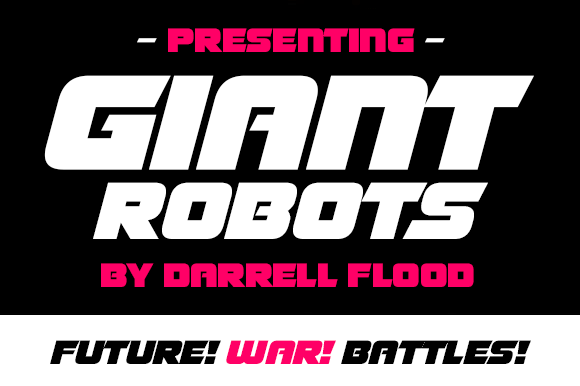
Giant Robots Font: A Slick Sci-Fi Font for Modern Use
In the realm of typography, fonts play a crucial role in conveying the tone and aesthetic of a brand, product, or presentation. For those seeking a font that embodies a futuristic, high-tech vibe, the Giant Robots Font is an excellent choice. This sleek sci-fi font boasts a modern, mixed, curved, and angled style, making it perfect for tech presentations, space adventures, and general modern use.
Key Features of Giant Robots Font
- Modern and Futuristic Design: The Giant Robots Font features a unique blend of curved and angled lines, giving it a distinctly modern and futuristic appearance.
- Sci-Fi Inspiration: Inspired by the world of science fiction, this font is ideal for projects that require a space-age or technological feel.
- Mixed Style: The font’s mixed style combines different typographic elements to create a visually appealing and dynamic look.
- Curved and Angled Lines: The curved and angled lines used in the font design add a sense of movement and energy, making it perfect for projects that require a sense of dynamism.
Ideas for Using Giant Robots Font
The Giant Robots Font is versatile and can be used in a variety of projects, including:
- Tech Presentations: Add a futuristic touch to your tech presentations, pitch decks, and sales materials with this font.
- Space Adventures: Use the Giant Robots Font to create eye-catching titles, headings, and captions for space-themed projects, such as documentaries, films, or video games.
- Branding and Logo Design: Create a memorable brand identity with this font, perfect for startups, tech companies, or innovative products.
- Marketing Materials: Use the font to create attention-grabbing marketing materials, such as brochures, flyers, or social media graphics.
Typography Tips for Using Giant Robots Font
To get the most out of the Giant Robots Font, consider the following typography tips:
- Pair with Neutral Fonts: Pair the Giant Robots Font with neutral fonts, such as sans-serif or serif fonts, to create a balanced look.
- Experiment with Font Sizes: Play with different font sizes to create visual hierarchy and emphasize key points.
- Use Color Effectively: Use color to enhance the font’s futuristic feel, such as bright blues, neon greens, or metallic silvers.
Benefits of Using Giant Robots Font
The Giant Robots Font offers several benefits, including:
- Unique and Memorable: The font’s unique design makes it memorable and attention-grabbing.
- Versatile: The font can be used in a variety of projects, from tech presentations to marketing materials.
- Easy to Read: Despite its futuristic design, the font remains easy to read, even at smaller sizes.
The Giant Robots Font is an exceptional choice for those seeking a modern, futuristic font for their projects. Its unique blend of curved and angled lines, mixed style, and sci-fi inspiration make it perfect for tech presentations, space adventures, and general modern use. With its versatility, ease of use, and memorable design, this font is sure to elevate your projects to the next level.